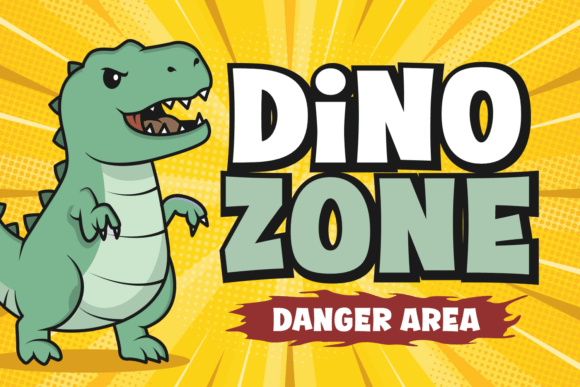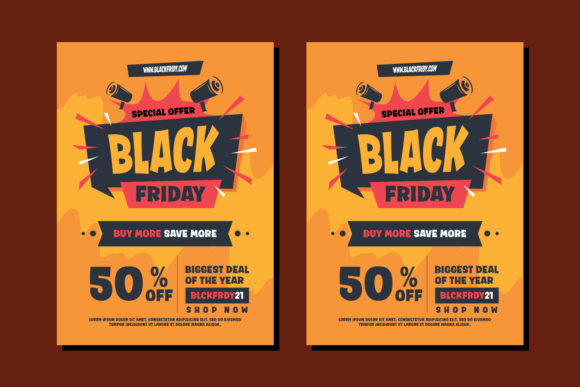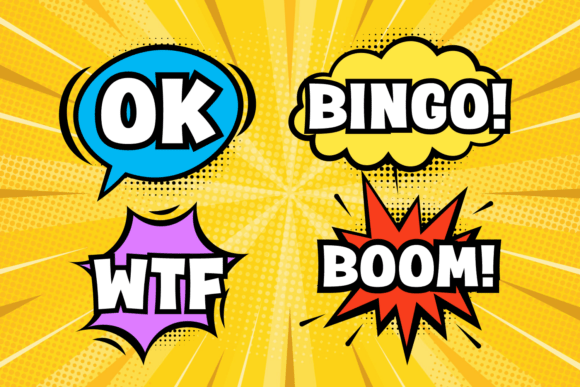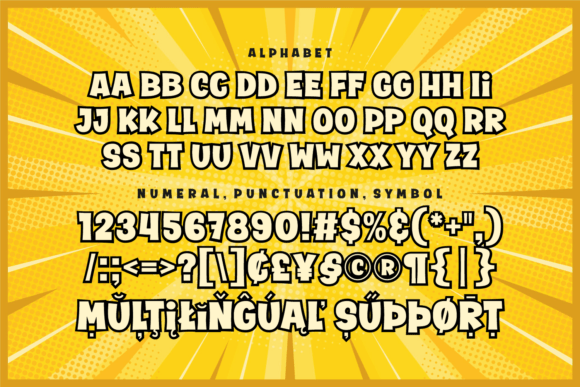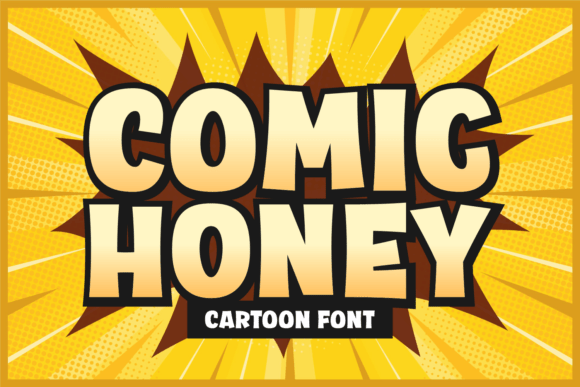
Introducing Comic Honey: The Ultimate Cartoon Font for Fun and Excitement
Are you looking for a font that can add a burst of energy and excitement to your designs? Look no further than Comic Honey, a bold and eye-catching cartoon font that’s perfect for creating playful and engaging content. With its thick, rounded letterforms and vibrant comic-book style, this typeface is sure to capture attention and bring a smile to your audience’s faces.
The Perfect Font for Playful Designs
Comic Honey is a versatile font that’s ideal for a wide range of design projects, from posters and children’s designs to product packaging and playful branding. Its lively, exaggerated shapes and strong outlines make it perfect for creating bold and dynamic text that pops. Whether you’re designing for kids or adults, Comic Honey is sure to bring a touch of fun and personality to your work.
Key Features of Comic Honey
- Bold and eye-catching: Comic Honey is a statement font that’s designed to grab attention. Its thick, rounded letterforms and strong outlines make it perfect for creating bold and dynamic text.
- Vibrant comic-book style: This font features a vibrant comic-book style that’s reminiscent of classic cartoons and comics. Its playful and energetic look is sure to bring a burst of personality to your designs.
- Perfect for kids and adults: Comic Honey is a versatile font that’s suitable for designs targeting both kids and adults. Its playful and fun style makes it perfect for children’s designs, while its bold and dynamic look makes it suitable for adult audiences.
- Easy to read: Despite its bold and playful style, Comic Honey is easy to read, even at smaller font sizes. This makes it perfect for use in a wide range of design projects.
Design Ideas with Comic Honey
So, how can you use Comic Honey in your designs? Here are a few ideas to get you started:
- Children’s posters and flyers: Comic Honey is perfect for creating eye-catching posters and flyers for kids’ events, parties, and activities.
- Product packaging: Add a touch of fun and personality to your product packaging with Comic Honey. This font is perfect for creating bold and dynamic labels and packaging designs.
- Playful branding: Use Comic Honey to create a playful and energetic brand identity that’s sure to stand out. This font is perfect for businesses that want to appeal to a younger audience.
- Crafting and DIY projects: Comic Honey is also perfect for crafting and DIY projects, such as making signs, banners, and other decorative items.
Tips for Using Comic Honey Effectively
Here are a few tips for using Comic Honey effectively in your designs:
- Use it sparingly: While Comic Honey is a bold and eye-catching font, it can be overwhelming if used excessively. Use it sparingly to create emphasis and add visual interest to your designs.
- Pair it with contrasting fonts: Pair Comic Honey with contrasting fonts, such as serif or script fonts, to create visual interest and add depth to your designs.
- Experiment with colors: Comic Honey looks great in bright, bold colors. Experiment with different colors to find the perfect combination for your design.
Comic Honey is a bold, eye-catching cartoon font that’s perfect for creating playful and engaging content. With its thick, rounded letterforms and vibrant comic-book style, this typeface is sure to capture attention and bring a burst of personality to your designs. Whether you’re a designer, crafter, or DIY enthusiast, Comic Honey is a great addition to your font collection.